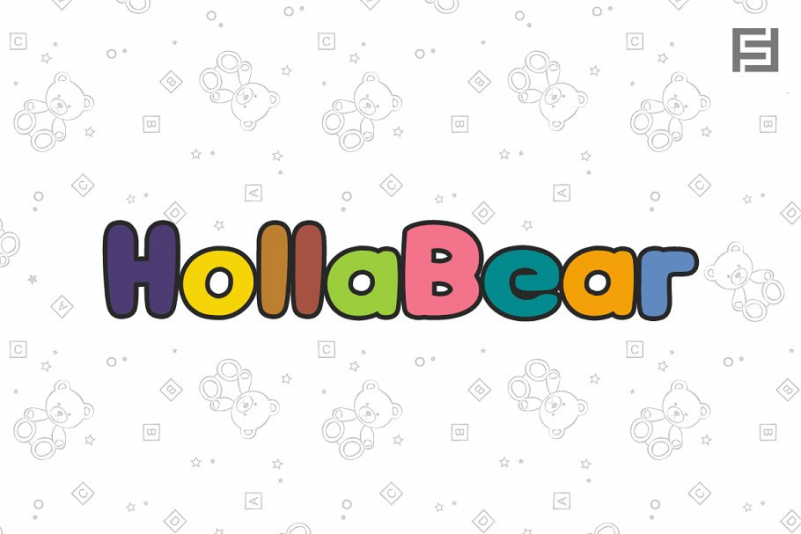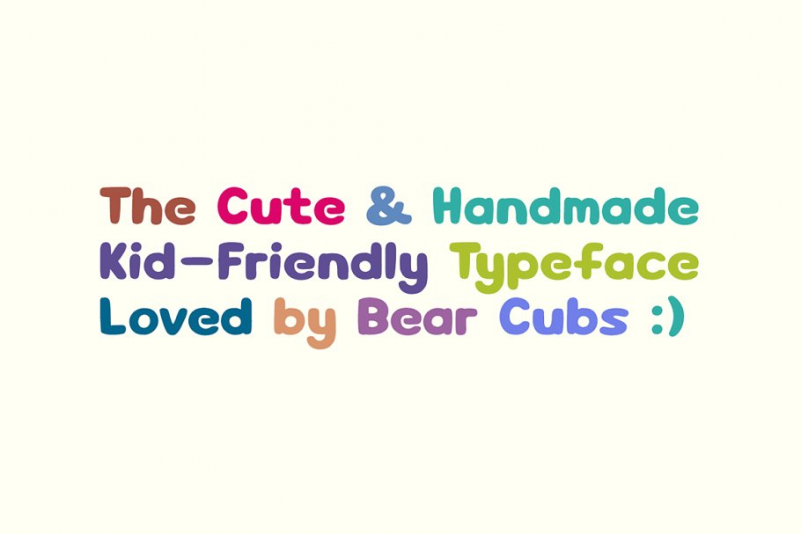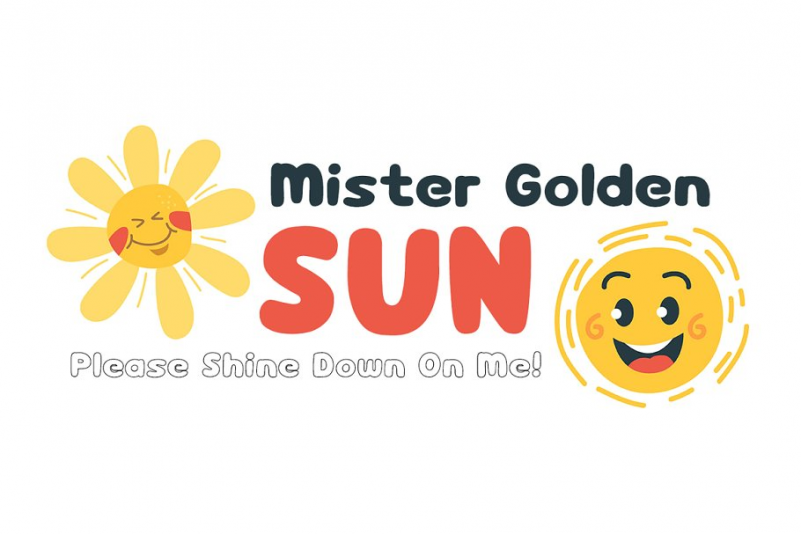
HollaBear Font
A cute & funny kid-friendly typeface inspired from bears and handmade with passion and joy! Will you believe if we say, HollaBear is made by bear cubs 🙂
The typeface is essentially simple but very uniquely expressive when it comes to the design of posters, flyers, cartoons graphics, logotype, web and display usage. Please see the examples shown above to get an idea about the capability of this typeface.
HollaBear comes with Extended Latin character sets including Western European, Central European and South Eastern European character sets.